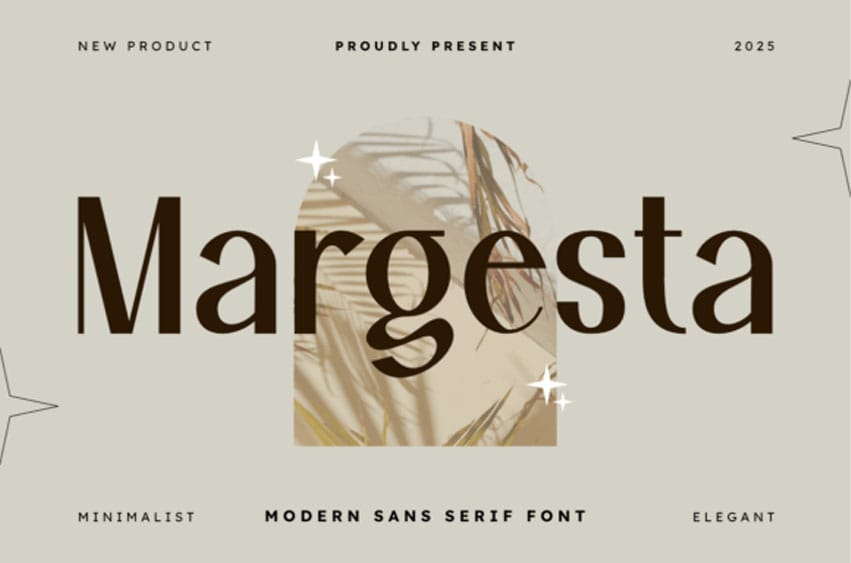
Margesta Font is a minimalist modern sans serif font that redefines elegance through simplicity. Crafted with clean lines and subtle artistic curves, this typeface offers a sophisticated look that is both contemporary and timeless. Its balanced proportions make it exceptionally versatile for a wide range of high-end design projects.
Ideal for minimalist branding, luxury logos, fashion editorials, and sleek web headers, Margesta ensures your message is delivered with clarity and style. Whether used for bold displays or refined body text, it adds a touch of effortless class to your creative toolkit.